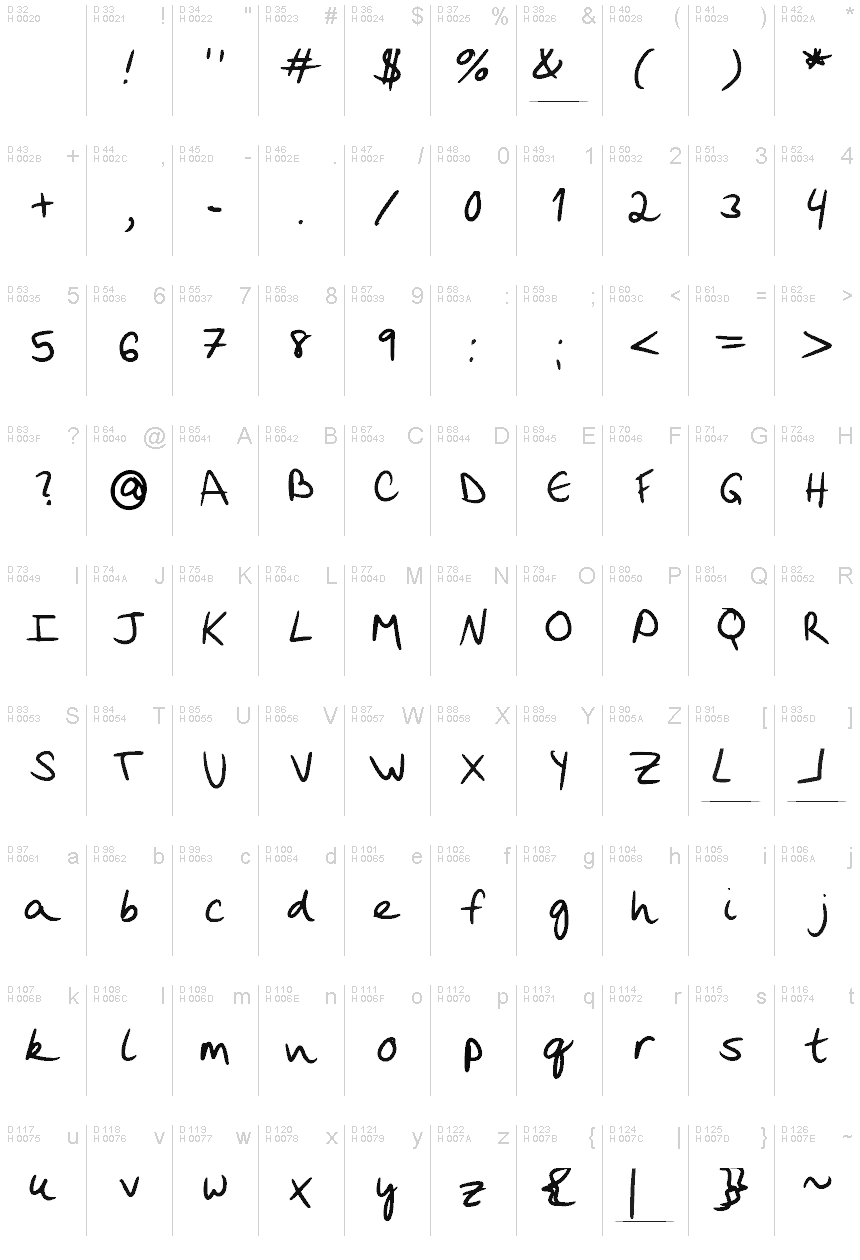
LeyFont
Ley Font, crafted by Ley Lm, is a captivating handwritten typeface that exudes a touch of effortless elegance. This fluid, dynamic script possesses a delightful organic quality, with each stroke capturing the vibrant energy of the human hand. The font's inherent expressiveness lends itself to a wide range of design applications, from eye-catching headlines to heartfelt personal correspondence.
The Ley Font's versatility shines through its ability to evoke a sense of warmth and authenticity, making it a natural choice for projects that require a personal, handcrafted feel. Its unique character and distinctive personality make it an exceptional option for branding, packaging, editorial design, and any endeavor seeking to convey a genuine, heartfelt message.